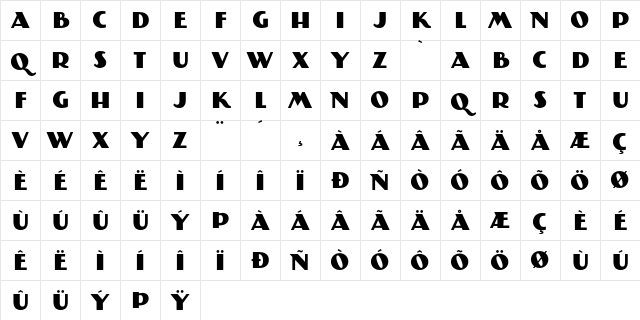
Complete Bankas Regular glyph index. Displaying only characters natively supported by Bankas Regular font.
Bankas is a composed and adaptable typeface that performs quietly and consistently across a wide range of design contexts.